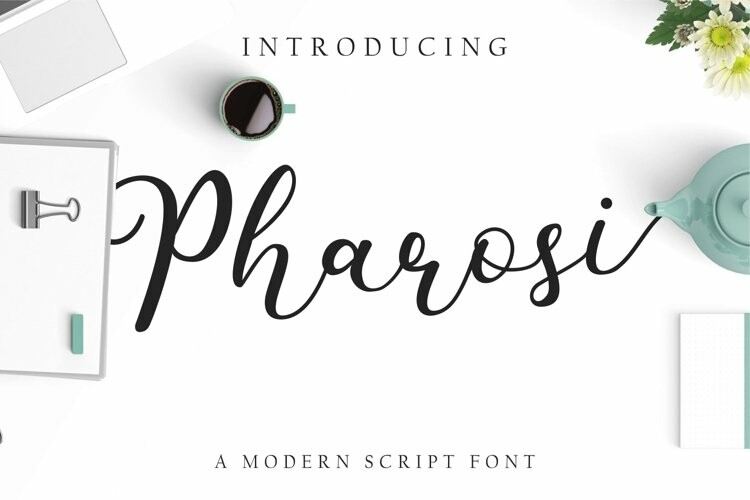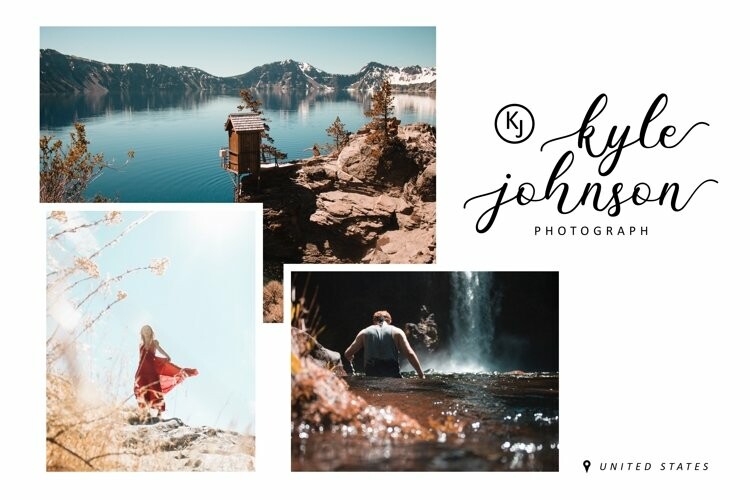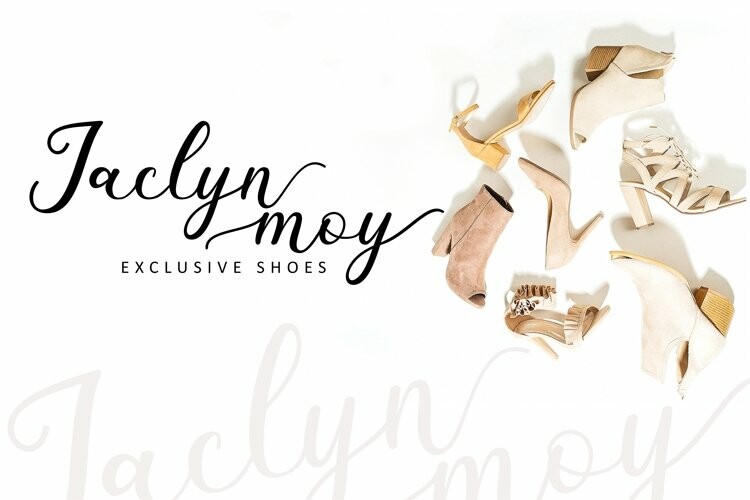
Pharosi Font
Pharosi FontThe Pharosi Font is a modern calligraphy font.
Pharosi font was built with OpenType features and includes beginning and ending swashes, numbers, punctuation, alternates, and ligatures.